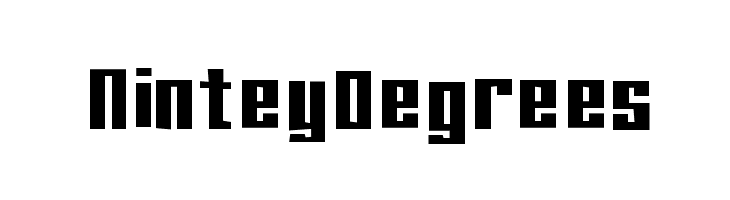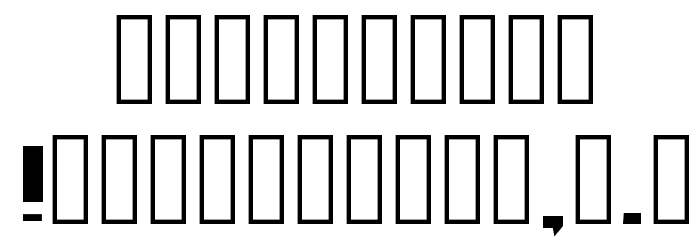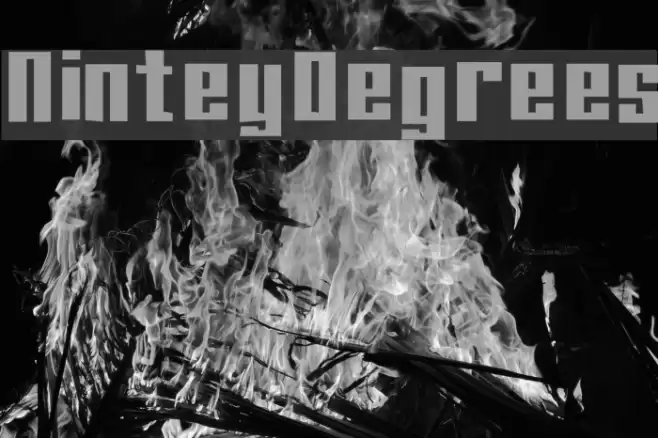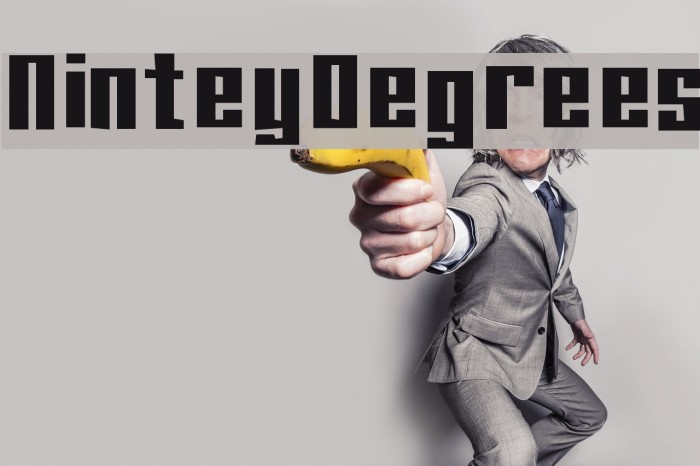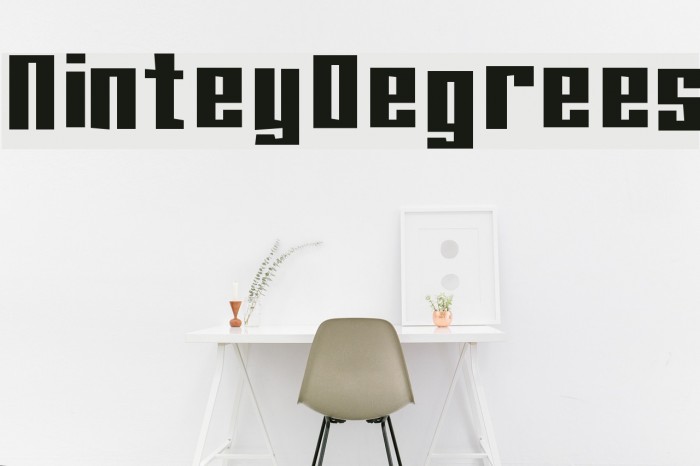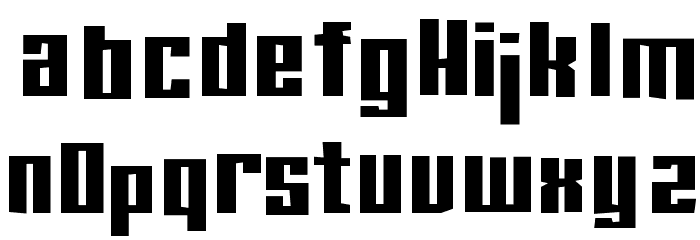
NinteyDegrees Font
NinteyDegrees Description
This font features a bold, geometric design with a strong, block-like appearance. The characters are constructed with sharp angles and straight lines, giving it a modern and industrial feel. The uppercase and lowercase letters maintain a consistent height, creating a uniform look across the text. The numbers and special characters follow the same design principles, ensuring cohesion throughout. The font's style is reminiscent of digital or pixelated text, making it suitable for projects that require a futuristic or tech-inspired aesthetic.
| Use Case | Logos, Headlines, Posters |
| Proposed Projects | Ideal for tech-related branding, digital interfaces, video game graphics, and futuristic posters. |